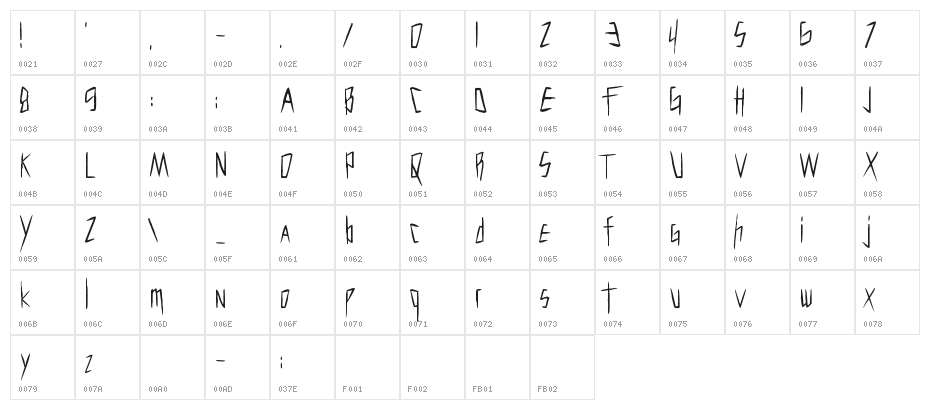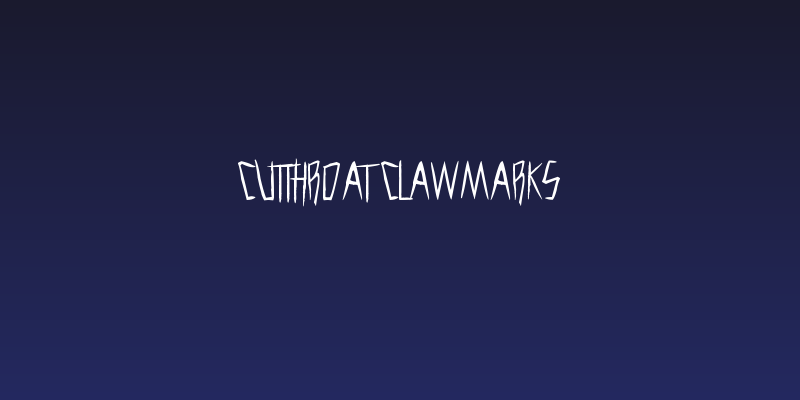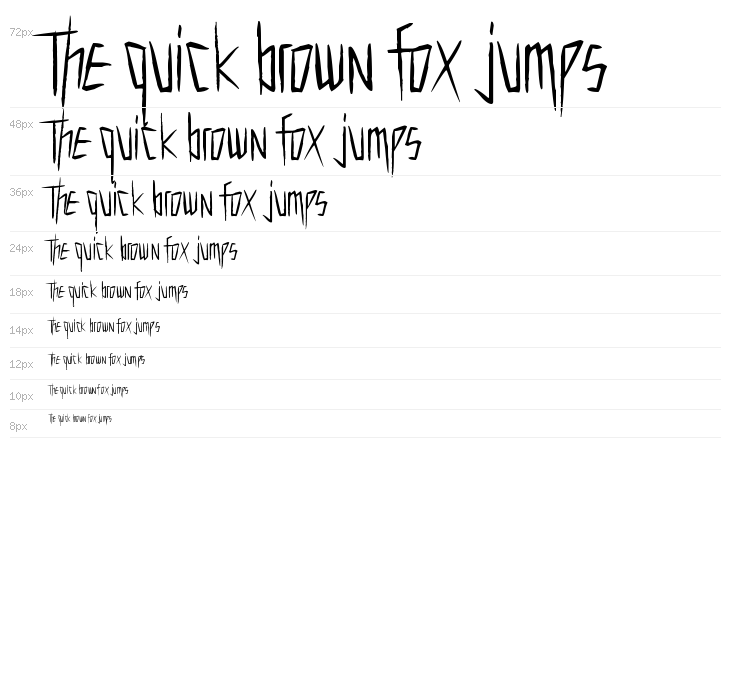
Cutthroat Clawmarks Font
Cutthroat Clawmarks Description
This font exudes a raw, edgy aesthetic with its sharp, claw-like strokes that give each character a sense of aggression and intensity. The letters are irregular and jagged, resembling marks made by claws, which adds a dynamic and chaotic feel. The uppercase and lowercase letters maintain a consistent style, with elongated verticals and angular edges. The numerals and special characters follow the same rugged design, ensuring uniformity across the typeface. This font is perfect for projects that require a bold, rebellious statement, capturing attention with its unique and striking appearance.
| Use Case | Logos, Posters, Headlines |
| Proposed Projects | Ideal for horror movie posters, rock band logos, edgy apparel designs, and Halloween-themed graphics. |